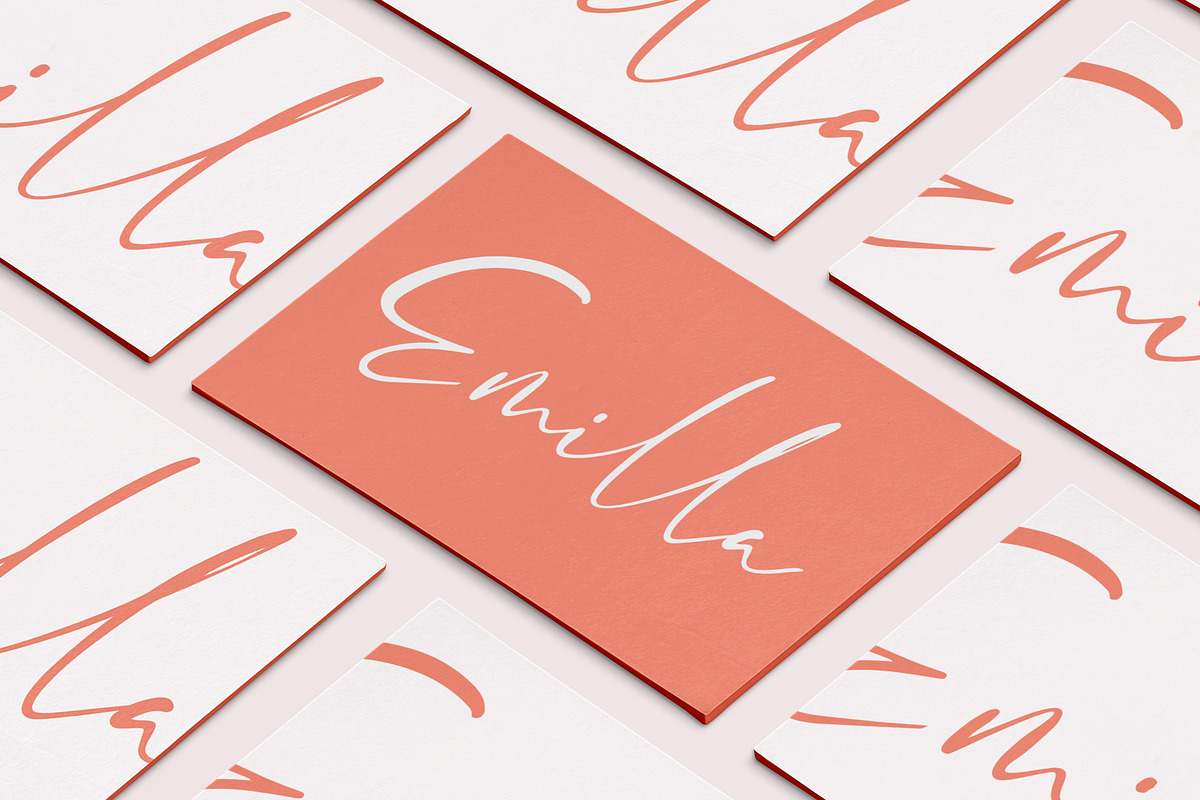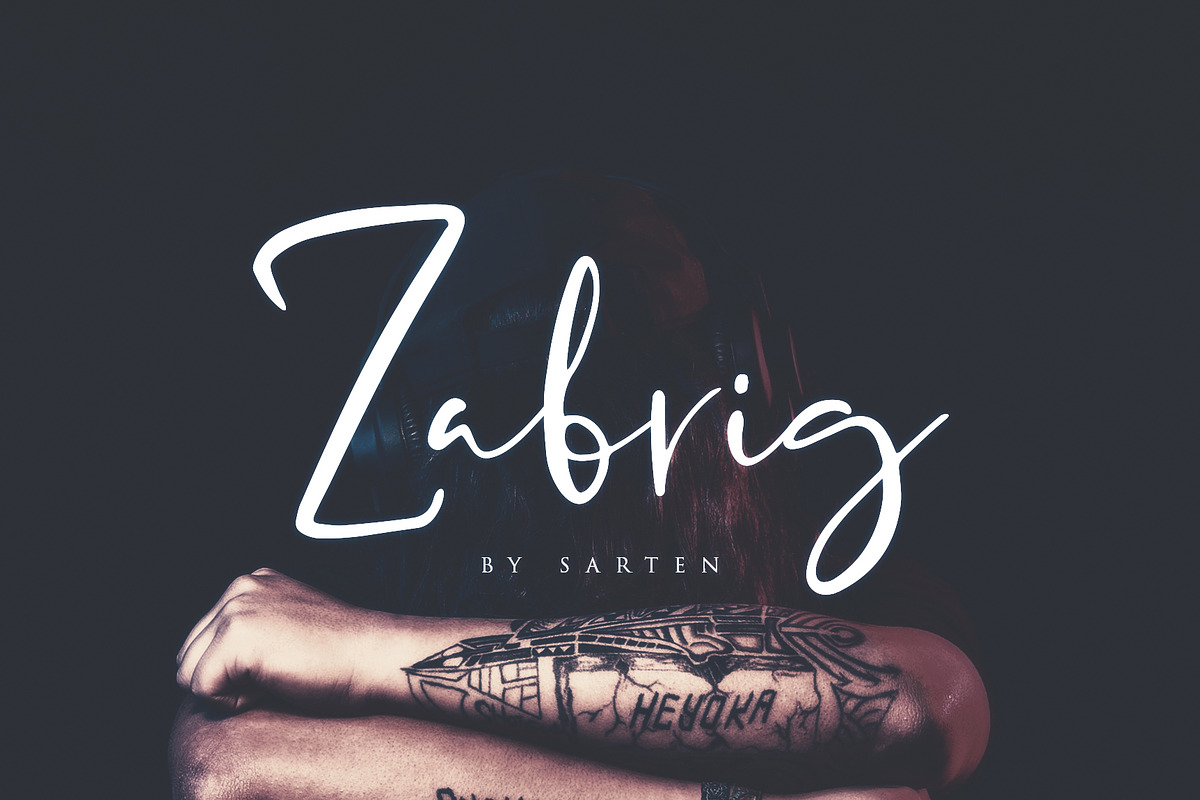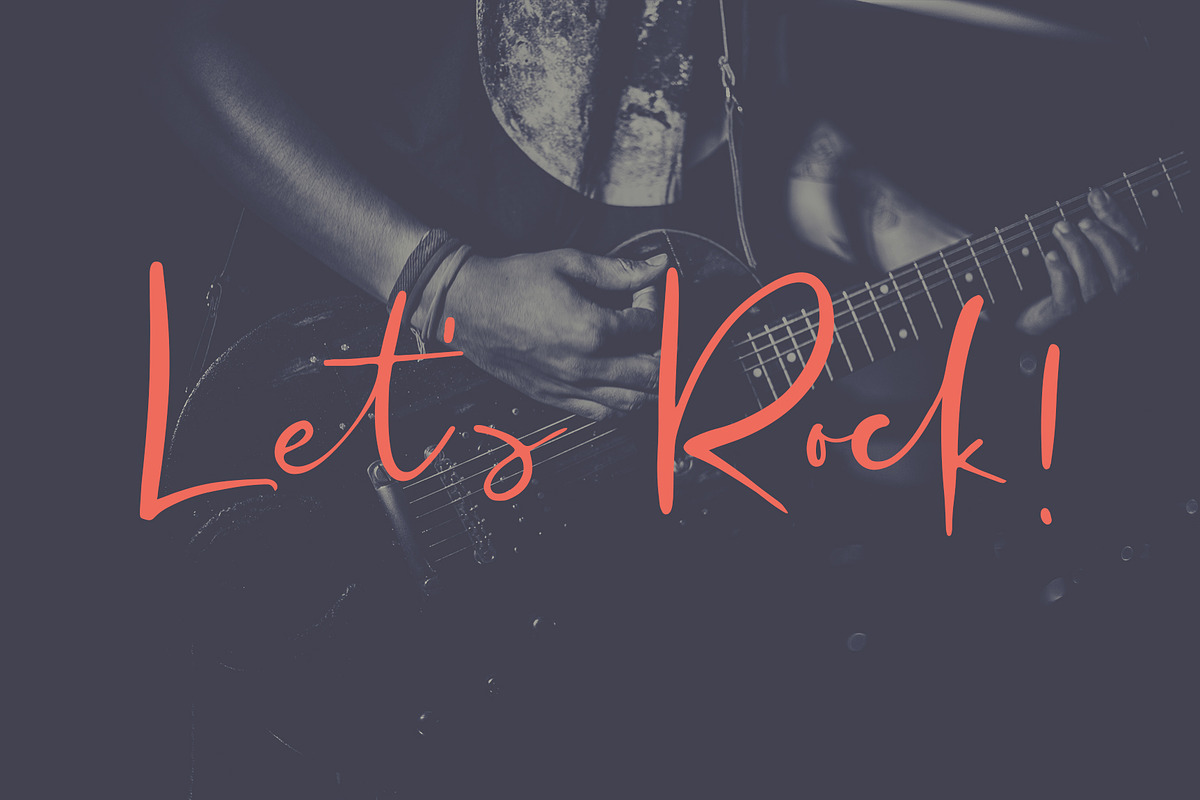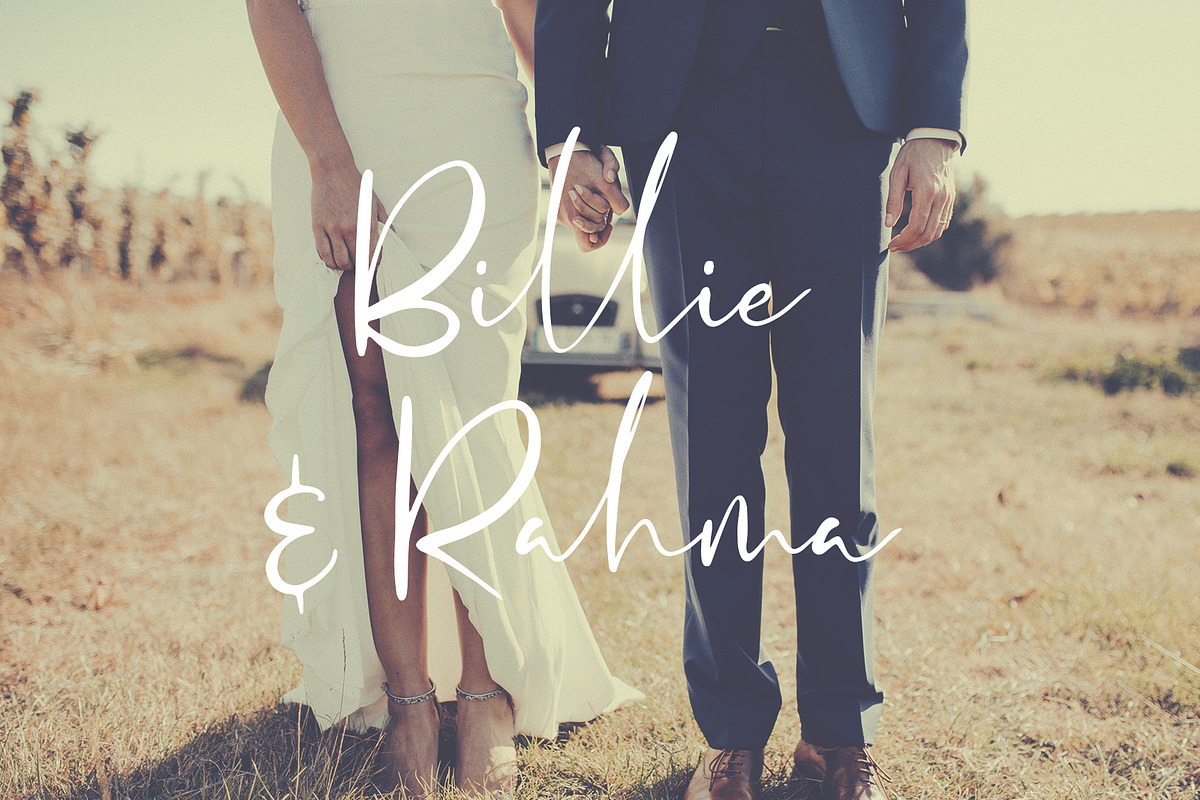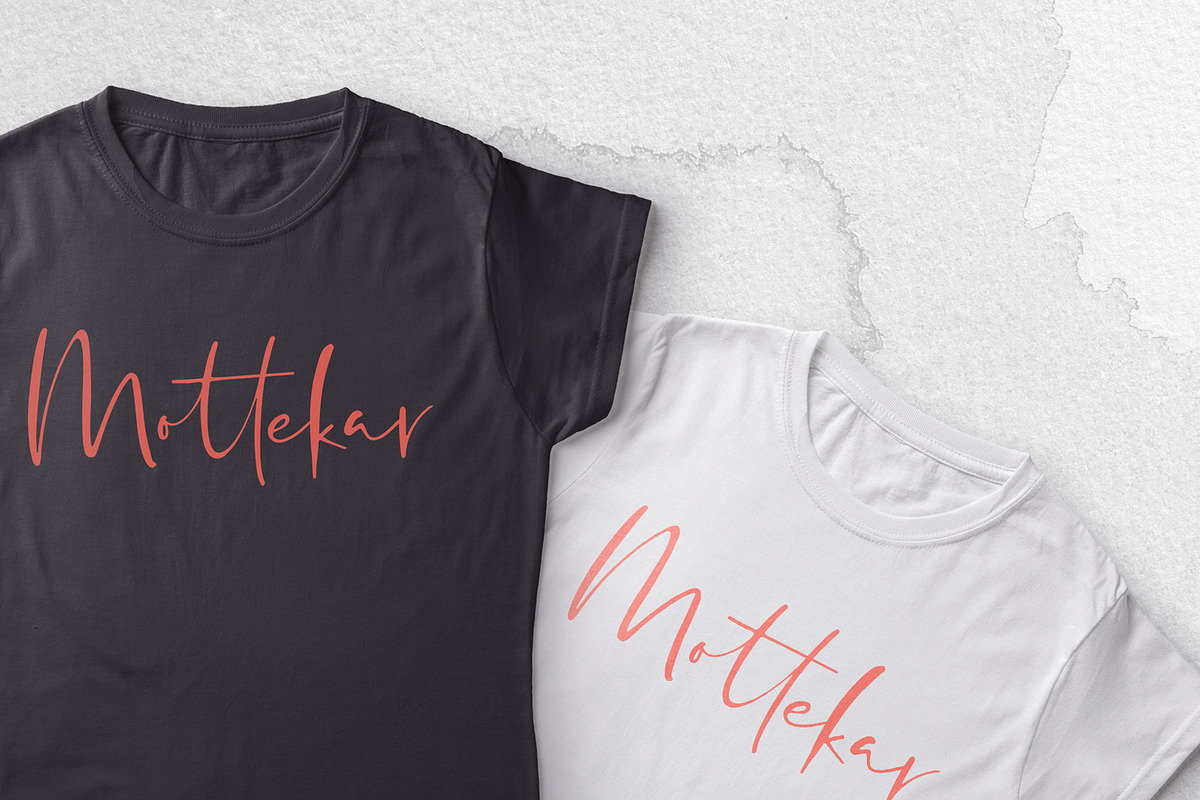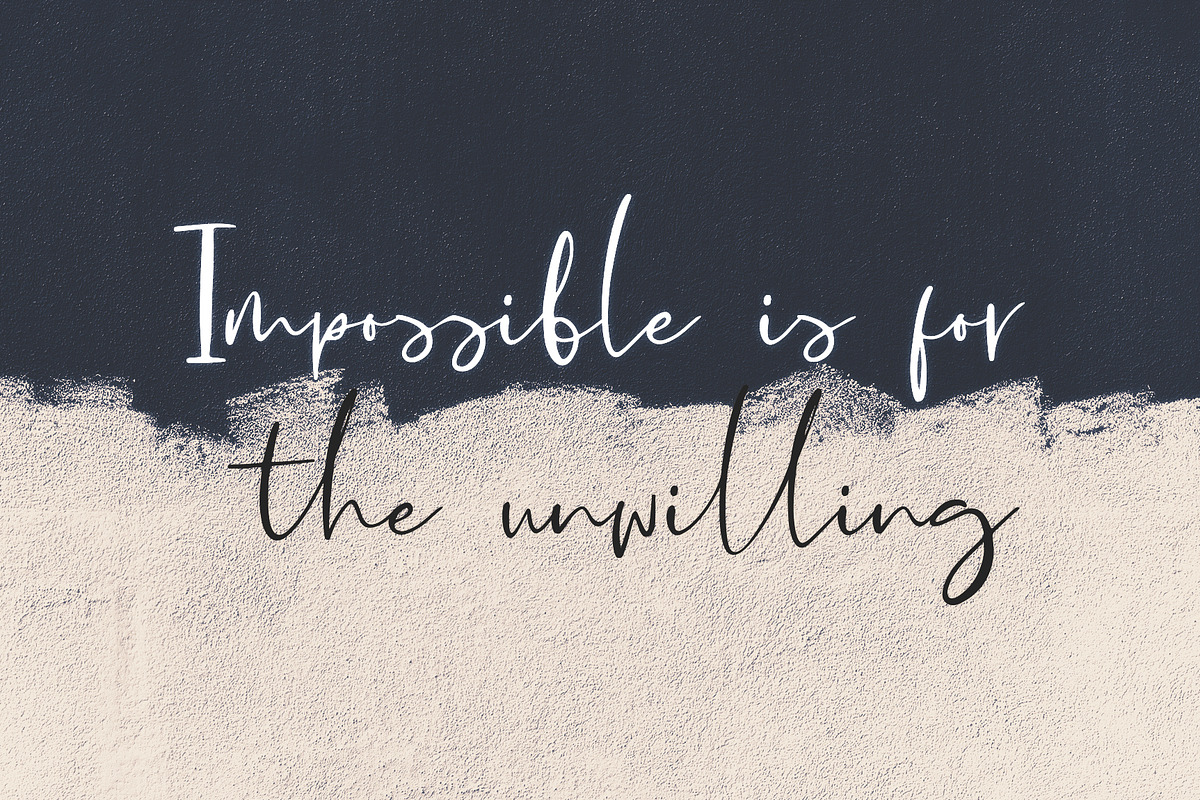
Zabrig Script Font
Zabrig is a beautiful handwritten script font that will give your designs a refined look with tons of style and simplicity. This font has a natural flow to it and works well in signature styled applications.
A lot of ligatures for more natural looks: ab ah ak al as at att bb cc ch ck cl ct db dd ee ef el et ett ff ft gh gl gt ht ib it itt ill lk ll lt nt ob of ot ott pl rr sh sk sl ss st ub tt th ut utt tl
Why Zabrig Script Font is worth a look
Zabrig Script Font by Sarten fits naturally into Branding, posters, packaging, typography.